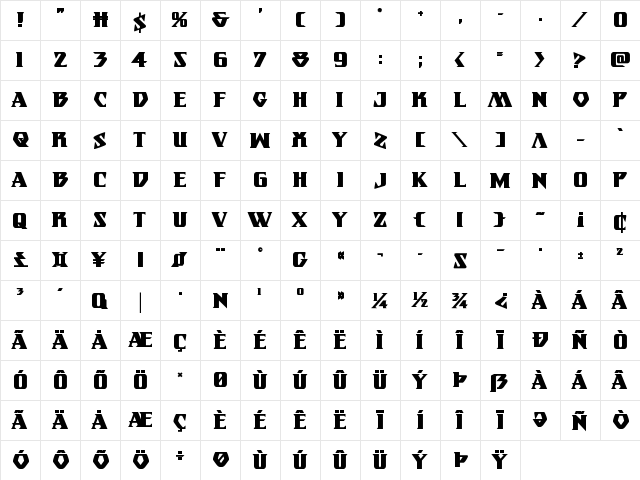
Eternal Knight Bold Bold
Design Context for Eternal Knight Bold Typeface
Eternal Knight Bold is a composed and adaptable typeface that performs quietly and consistently across a wide range of design contexts. The heavy weight commands attention and anchors typographic hierarchies.
Pro Tip: Use Eternal Knight Bold in both headline and body roles to test its range before committing to a single application.